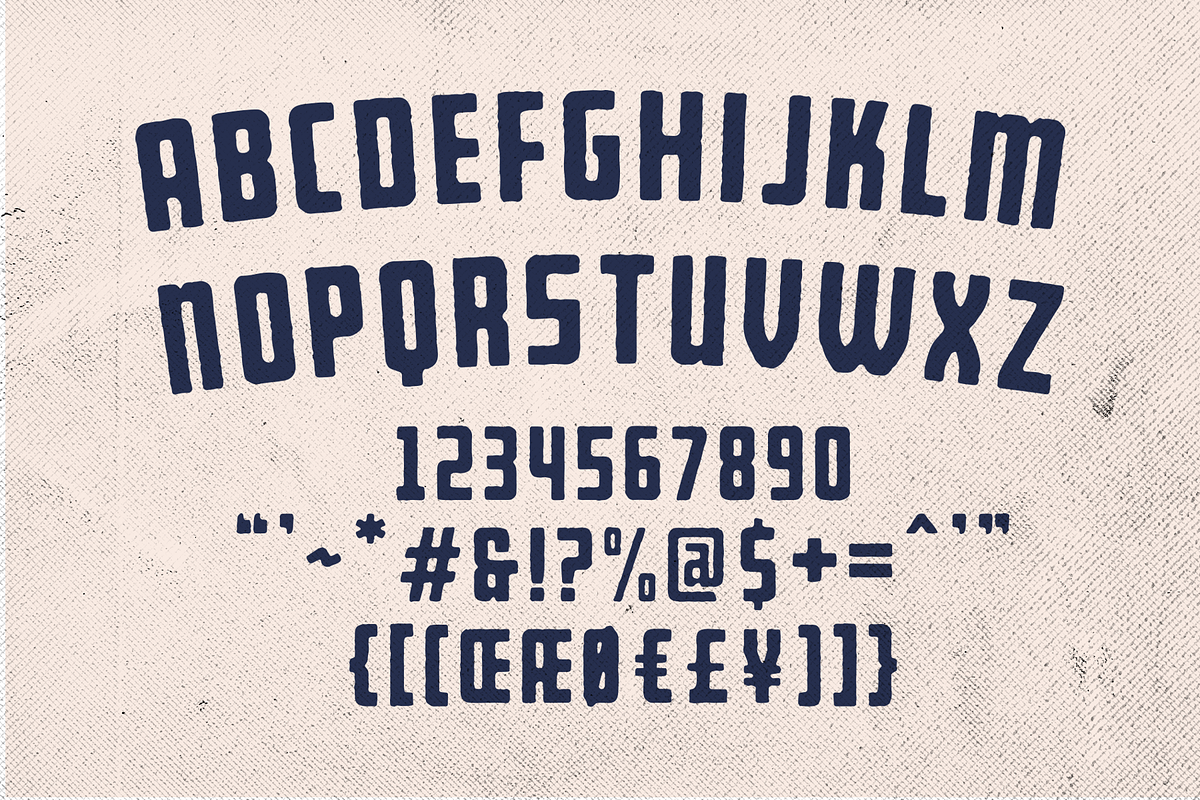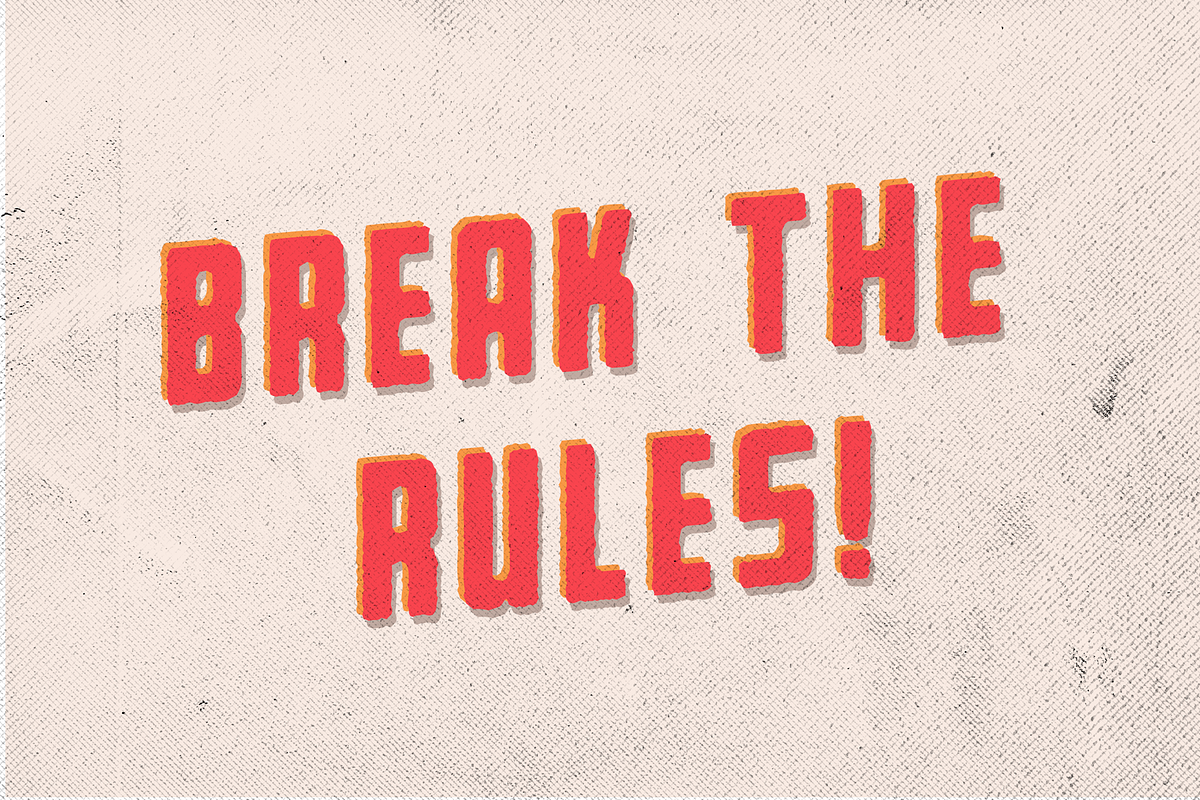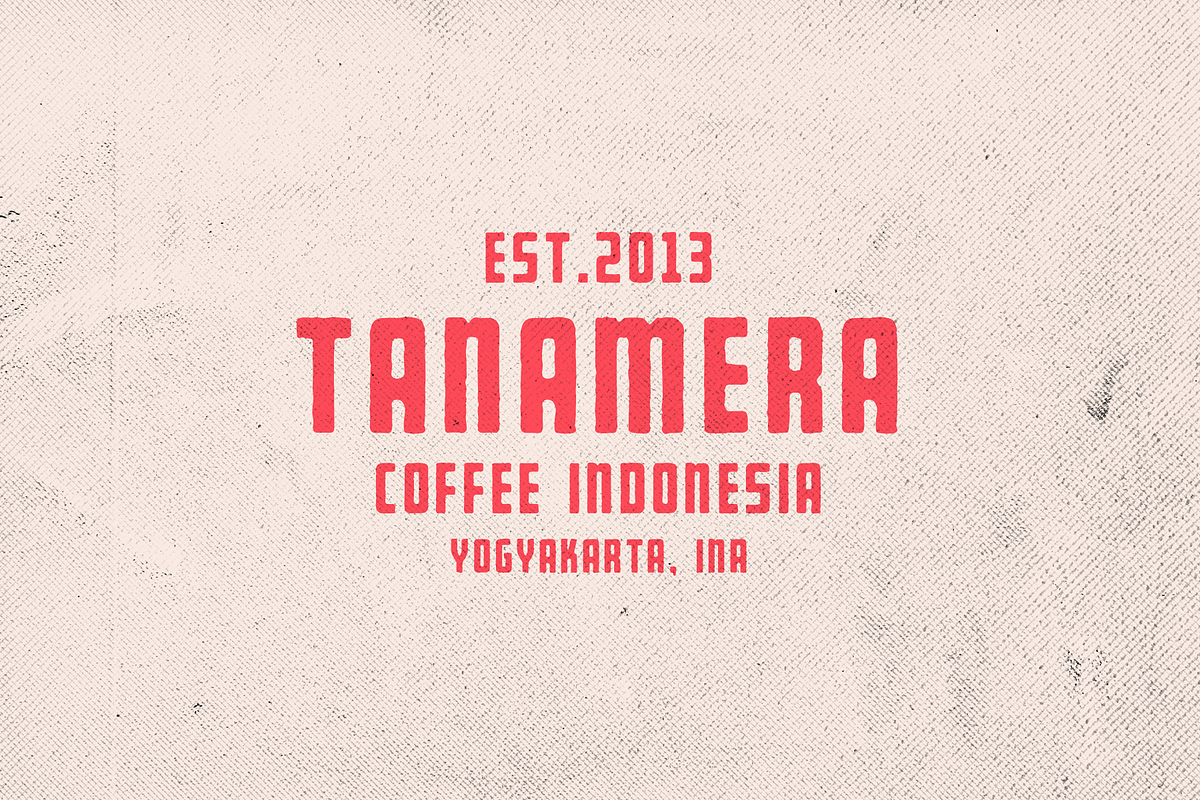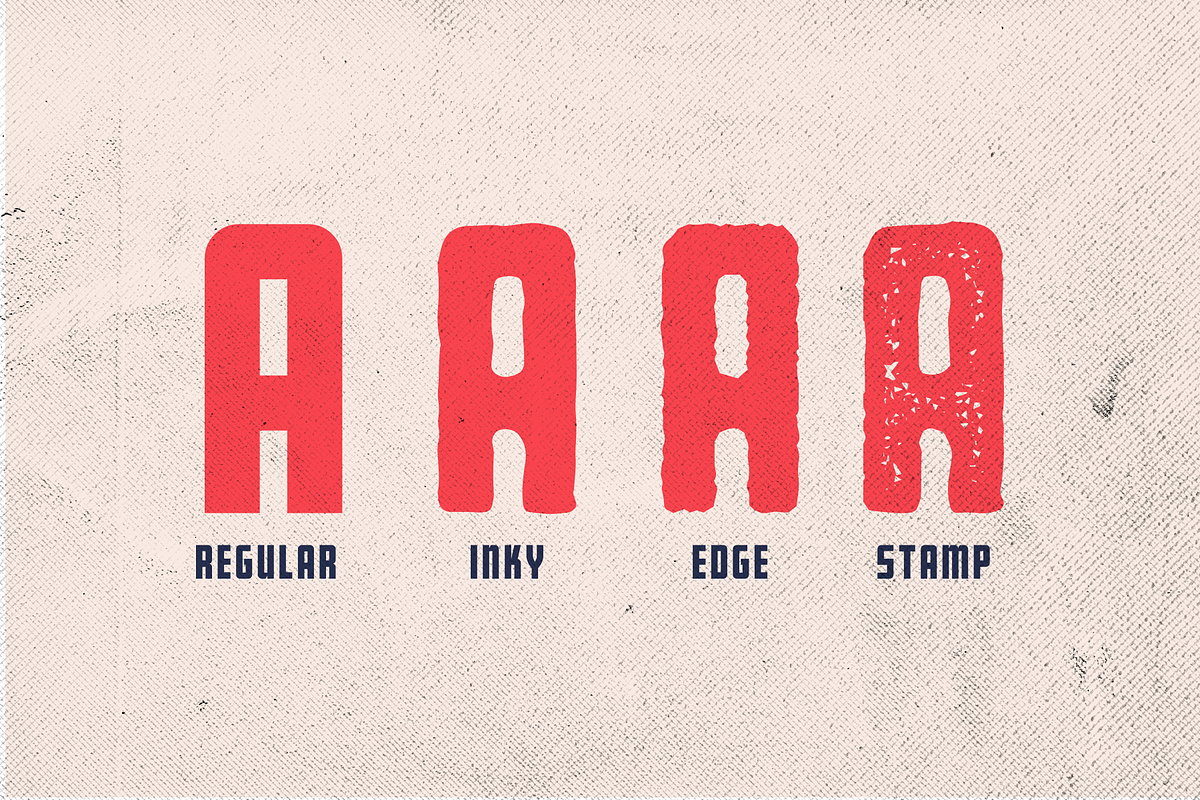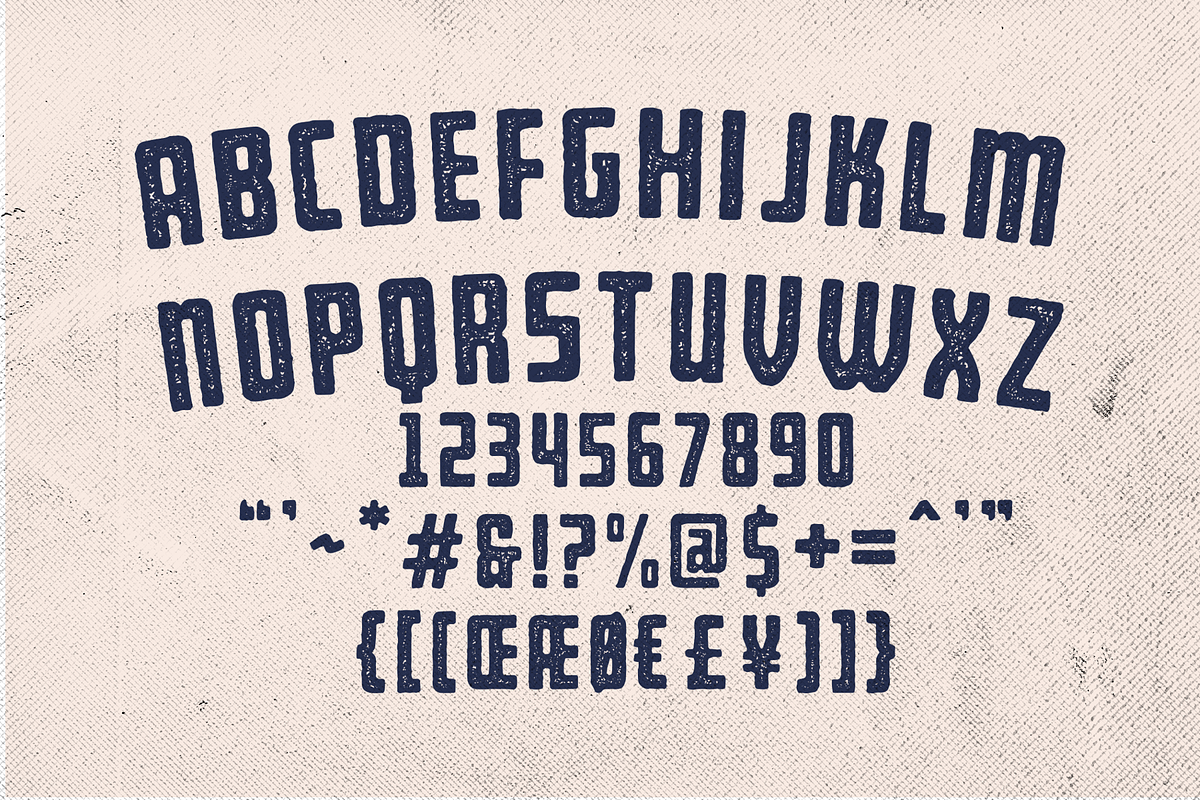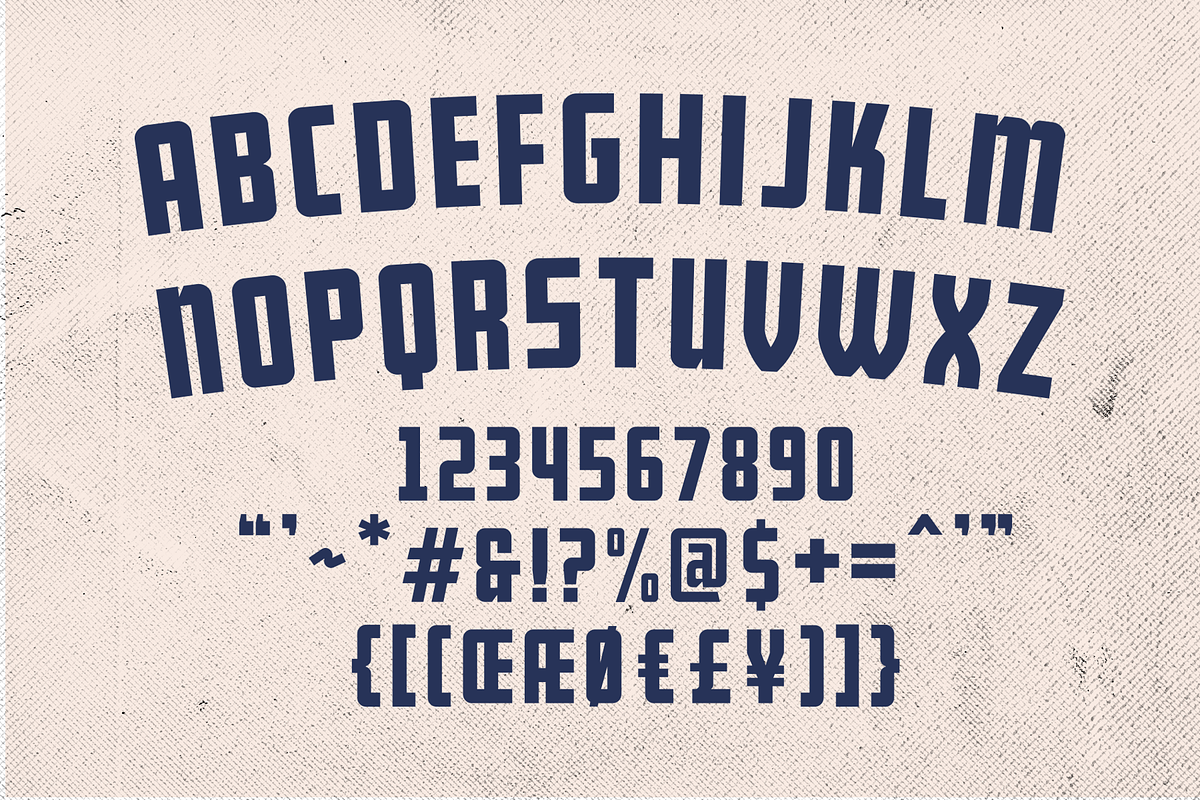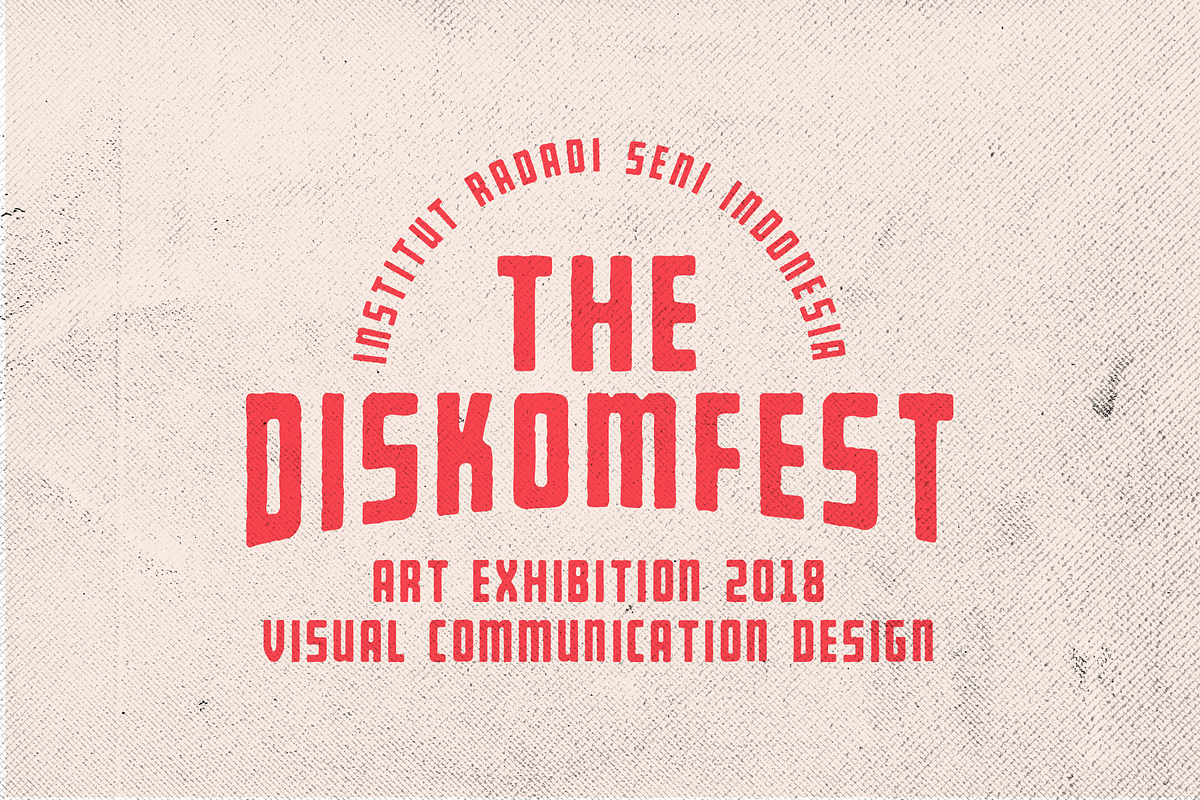
Bearbone Sans (8 Fonts Total!)
BEARBONE SANS is a family sans serif font designed with carefully handcrafted. Also suitable for branding, T-shirt, Wedding Invitation, Classic Design, Logotype, and any project. With two style make you easier to design everythings.
Bearbone Sans + Oblique
Bearbone Stamp + Oblique
Bearbone Edge + Oblique
Bearbone Inky + Oblique